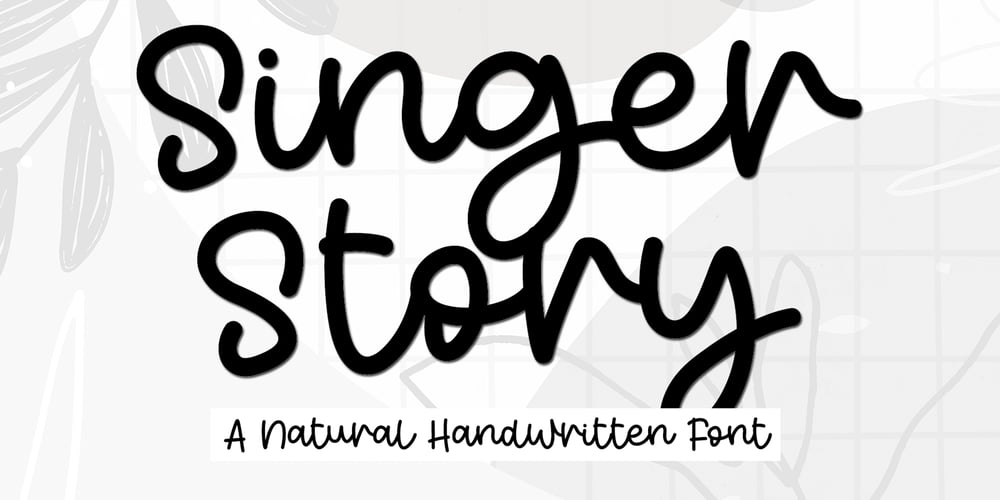
Singer Story Font Family was designed by Ahmad Afandi and published by Letterafandi Studio. Singer Story contains 2 styles and family package options. Singer Story is a simple, thin lettered, and flowing handwritten font. This adaptable font will look great on a variety of design ideas. It will add a fun and friendly touch to each of your projects!